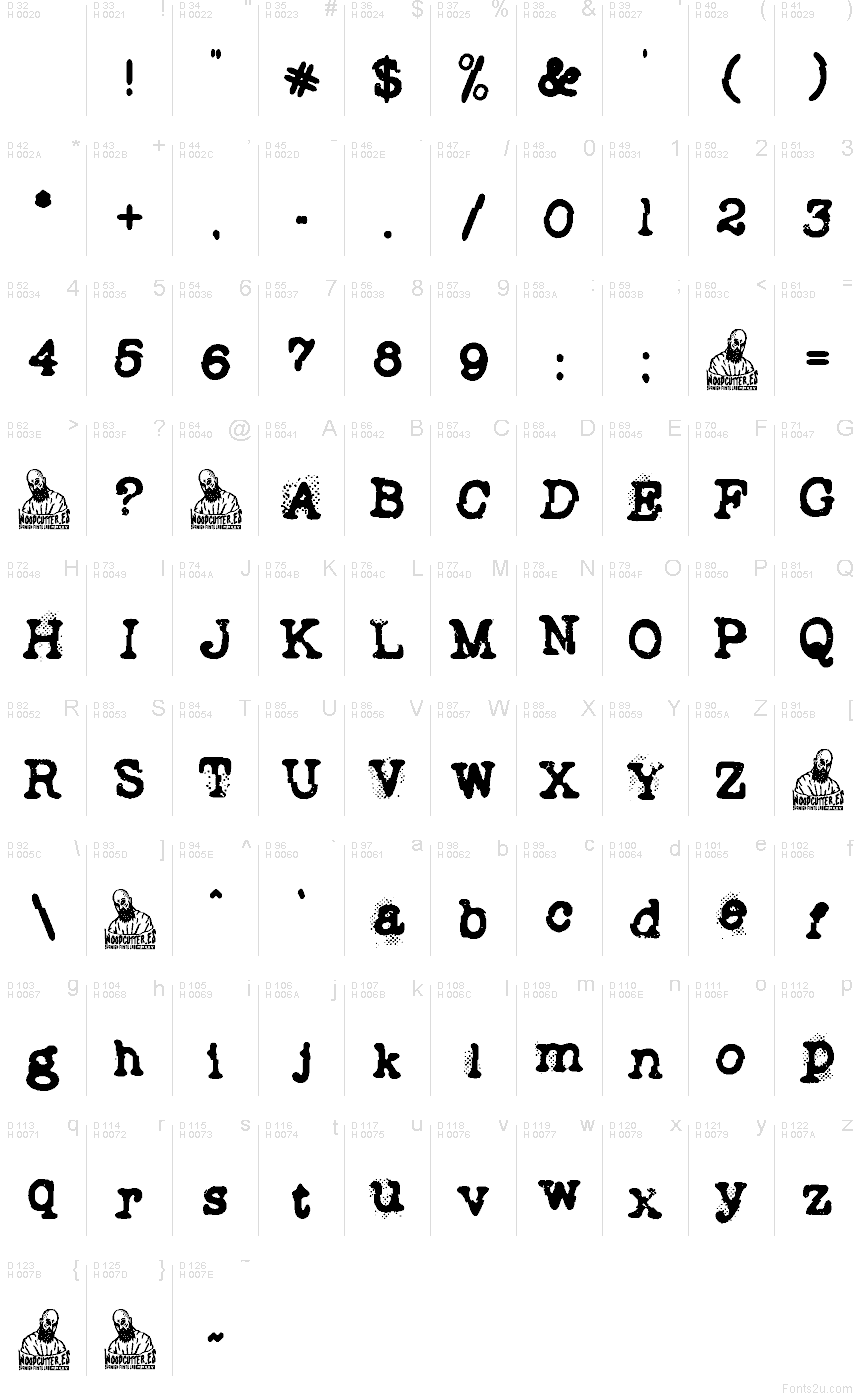
The Typewriter Hell font by Woodcutter is a free eroded display typeface that looks like it’s been hammered out on a possessed typewriter. Chunky, inky letters crumble at the edges into a mist of dots and splatters, as if the ribbon exploded mid-sentence. The texture is aggressive but still readable, giving you that “found in a cursed archive” vibe without losing clarity in big headlines.
Using The Typewriter Hell font, you can push horror posters, Halloween invites, escape room branding, game titles, book covers, and YouTube thumbnails into full-on nightmare mode. The irregular, blotchy forms add instant tension and grit, especially at large sizes. For body text, pair this free font with a clean, neutral sans serif so the chaos stays in the headline where it hits hardest.